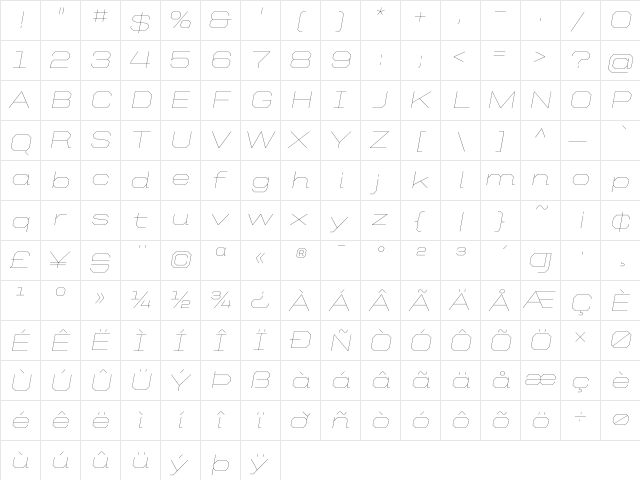
United Italic Ext Thin Font Preview
Design Context for United Italic Ext Typeface
United Italic Ext is a composed and adaptable typeface that performs quietly and consistently across a wide range of design contexts. The dynamic lean of this cut emphasises speed and emphasis in any layout. The delicate stroke weight brings airiness and refinement to layouts.
Pro Tip: Try United Italic Ext for annotation and caption copy alongside an upright companion — the contrast in angle creates a dynamic but ordered typographic system.